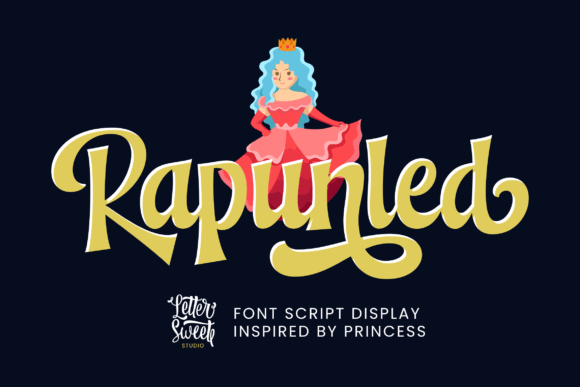
Rapunled Font: A Royal Script Font Inspired by Princess Rapunzel
The Rapunled font is a beautiful script font that draws inspiration from the beloved Princess Rapunzel movies. This stunning font is perfect for designers who want to add a touch of elegance and whimsy to their projects. With its flowing curves and intricate details, the Rapunled font is sure to captivate audiences of all ages.
Key Features of Rapunled Font
- Script Font: Rapunled is a script font that features flowing curves and connected letters, giving it a beautiful and elegant look.
- Inspired by Princess Rapunzel: The font is inspired by the popular Princess Rapunzel movies, making it perfect for projects that require a touch of magic and fantasy.
- Multiple Alternative Fonts: Rapunled has many alternative fonts, allowing designers to experiment with different styles and create unique designs.
Benefits of Using Rapunled Font in Your Designs
The Rapunled font offers several benefits to designers, including:
- Unique and Attractive Designs: With its intricate details and flowing curves, the Rapunled font can help create unique and attractive designs that stand out from the crowd.
- Elegant and Whimsical: The font’s elegant and whimsical style makes it perfect for projects that require a touch of magic and fantasy.
Uses of Rapunled Font
The Rapunled font can be used in a variety of projects, including:
- Logos and Branding: The font’s unique and attractive style makes it perfect for logos and branding projects that require a touch of elegance and whimsy.
- Posters and Flyers: The font’s bold and eye-catching style makes it perfect for posters and flyers that require a touch of drama and flair.
- Wedding and Event Stationery: The font’s elegant and whimsical style makes it perfect for wedding and event stationery, such as invitations, menus, and programs.
Tips and Tricks for Using Rapunled Font
Here are a few tips and tricks for using the Rapunled font in your designs:
- Experiment with Different Styles: Don’t be afraid to experiment with different styles and variations of the Rapunled font to find the one that works best for your project.
- Use it in Combination with Other Fonts: The Rapunled font can be used in combination with other fonts to create a unique and attractive design.
- Pay Attention to Kerning and Spacing: Make sure to pay attention to kerning and spacing when using the Rapunled font to ensure that it looks its best.
The Rapunled font is a beautiful script font that draws inspiration from the beloved Princess Rapunzel movies. With its flowing curves and intricate details, the Rapunled font is sure to captivate audiences of all ages. Whether you’re a designer looking to add a touch of elegance and whimsy to your projects or a DIY enthusiast looking for a unique and attractive font, the Rapunled font is a great choice.